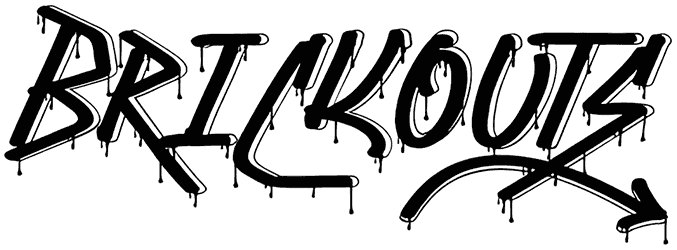
Brickouts Font
Having a script font like Brickouts that carries a sense of grunge, disorder, dynamism, and courage would be really tempting for all graphic designers. Since this graffiti font can bring an unbelievable amount of visibility to your artwork, including posters, banners, product packaging, and flyers, the lack of lowercase letters, numbers, and punctuation won’t be a serious deficiency.